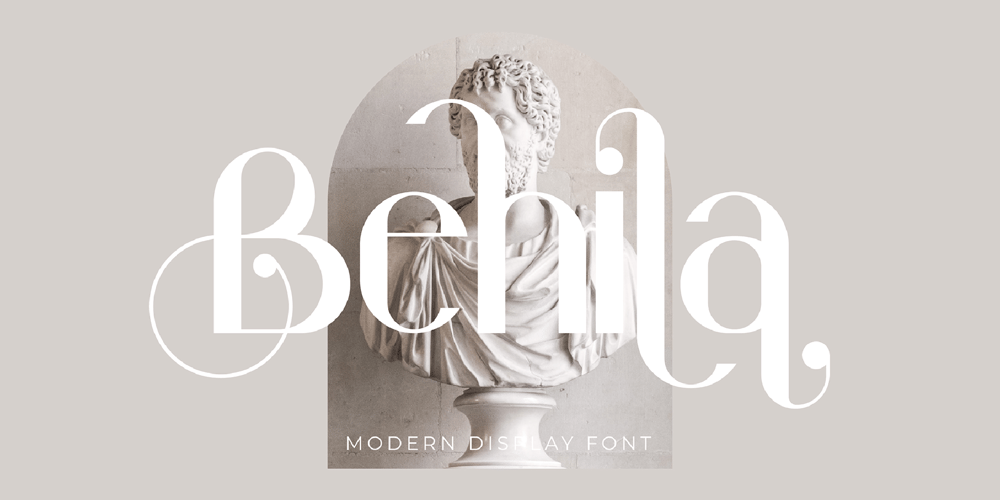
Behila Font Family was designed by Heru Utama Putra and published by Letterena Studios. Behila contains 2 styles and family package options. Behila is a classic serif font. Add it to your most creative ideas and notice how it makes them come alive!This font is PUA encoded which means you can access all of the glyphs and swashes with ease!